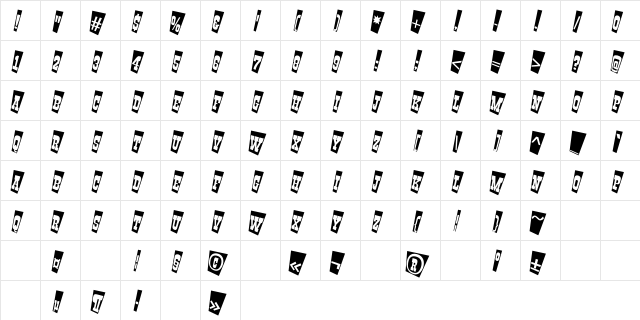
a_GildiaTitulTwCm Regular
Design Context for a_GildiaTitulTwCm Typeface
a_GildiaTitulTwCm is a composed and adaptable typeface that performs quietly and consistently across a wide range of design contexts.